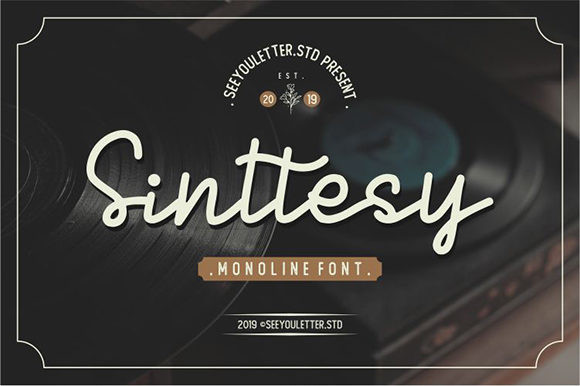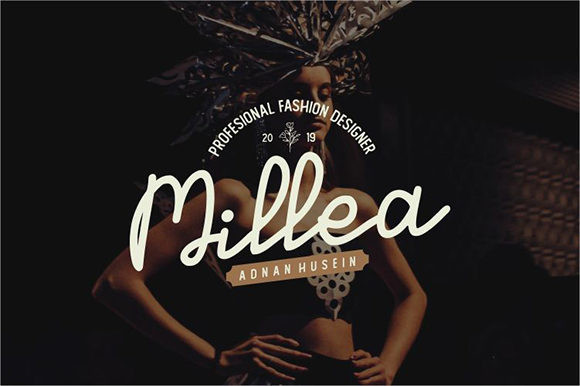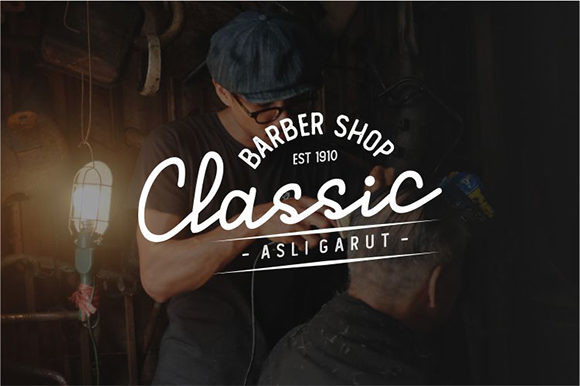
Sintessy Font
Introducing Sinttesy, a monoline script font inspired by classic label design. Works great applied to logos, labels,
prints, quotes, magazine headers, clothing, you can use it for your Instagram post to add vintage and hipster vibes.